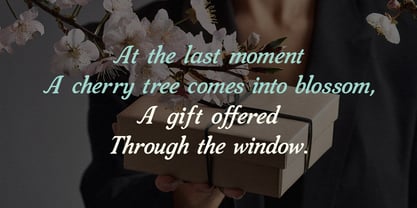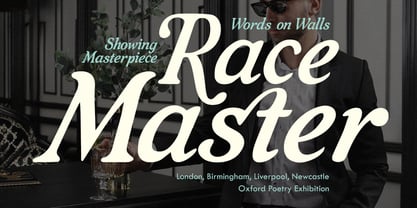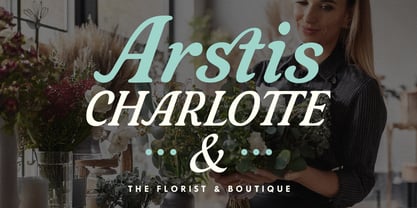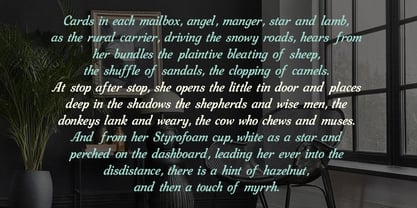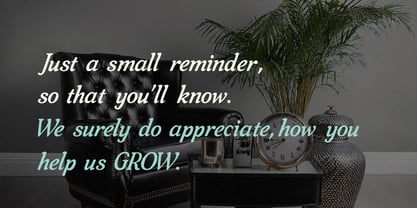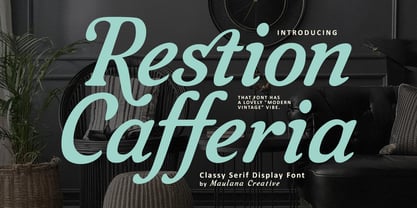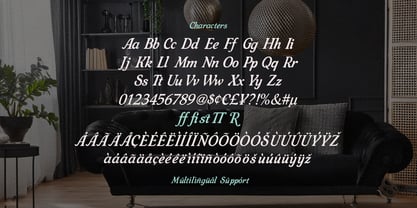
MC Restion Cafferia
by Maulana Creative
The MC Restion Cafferia Font Family was designed by Gilang Maulana and published by Maulana Creative. MC Restion Cafferia contains 1 styles. More about this family
Restion Cafferia is a sophisticated serif display font that masterfully blends traditional elegance with a modern vintage aesthetic. Designed by Maulana Creative, this typeface features a graceful italicized slant, fluid curves, and distinctive ligatures that evoke a sense of high end luxury and timeless style. Its unique character makes it an ideal choice for: - Branding & Logos: Perfect for fashion boutiques, florist shops, and premium lifestyle brands. - Editorial Design: Elevates magazine layouts, poetry, and artistic headlines. - Social Media: Adds a touch of class to quotes and promotional graphics. - Event Stationery: Beautifully suited for wedding invitations and exhibition posters. The font includes comprehensive multilingual support and a variety of stylistic alternates to ensure your designs look like a handcrafted masterpiece.
Designers: Gilang Maulana
Foundry: Maulana Creative